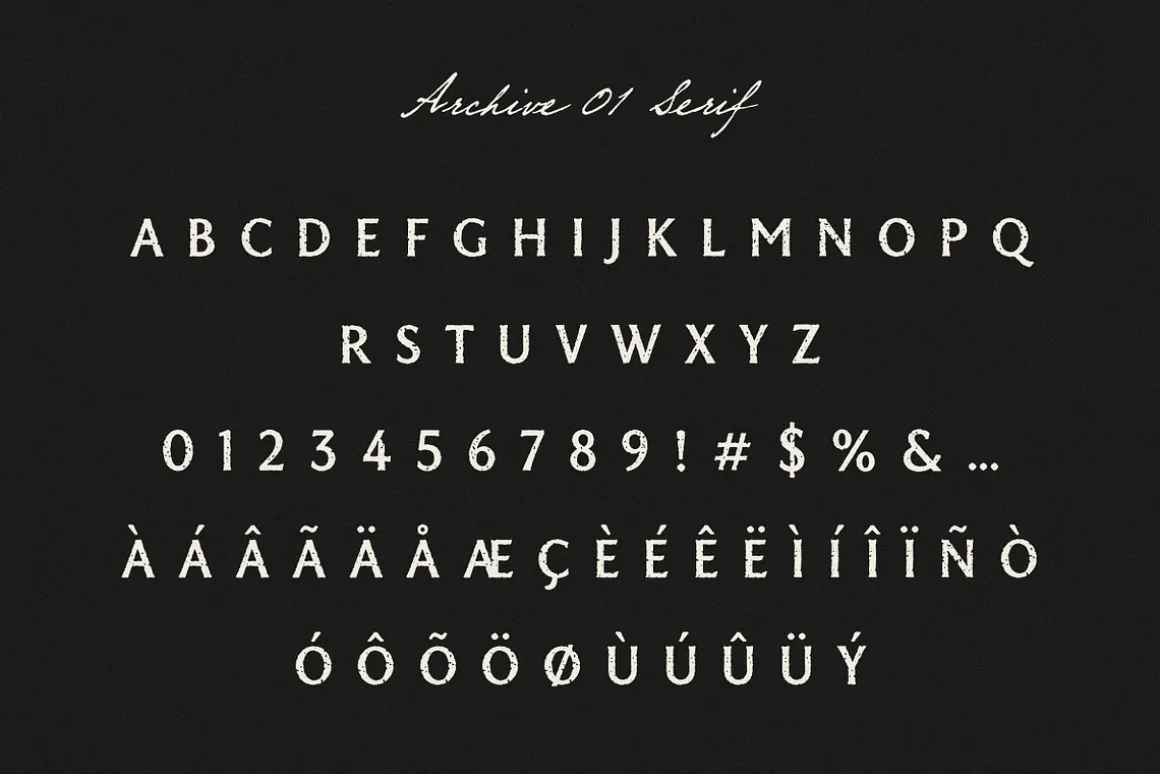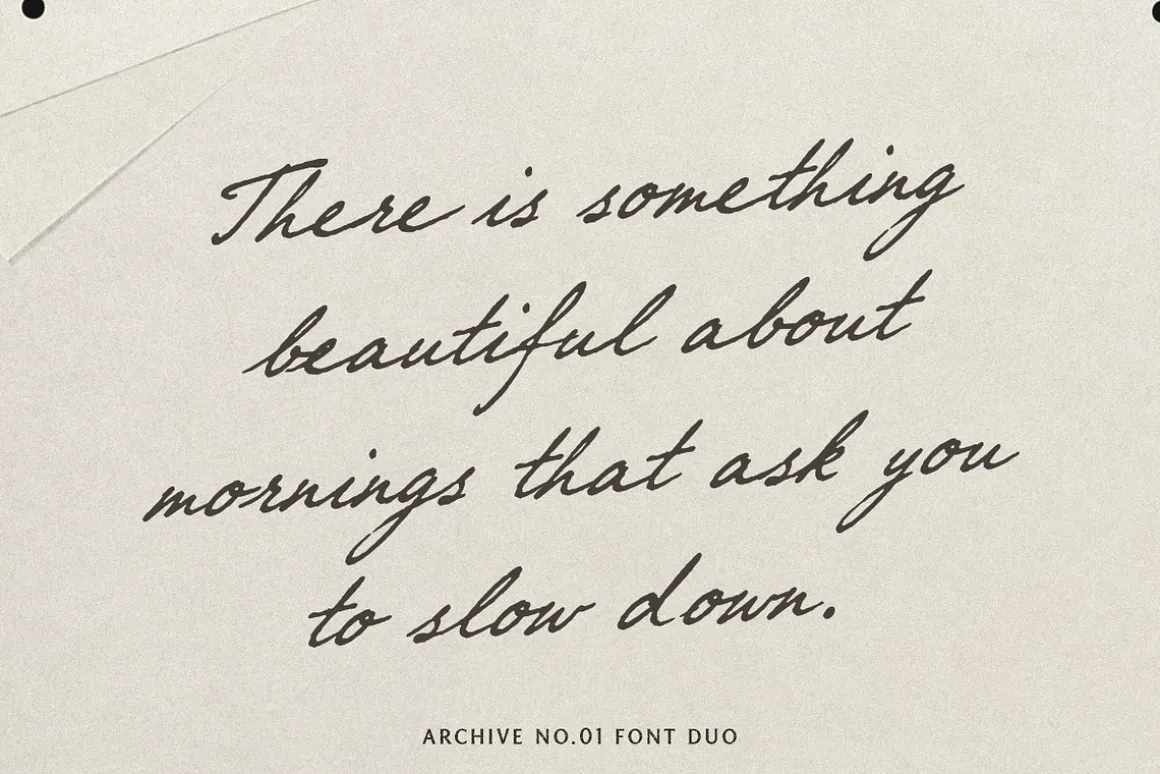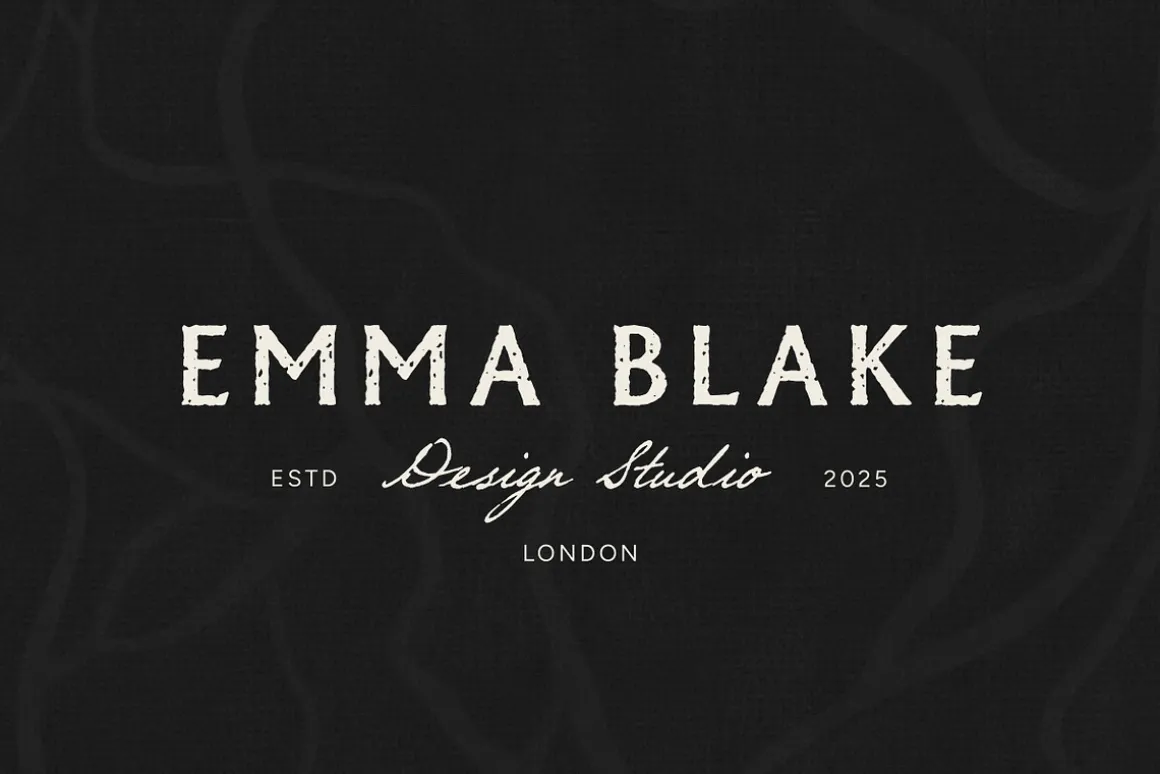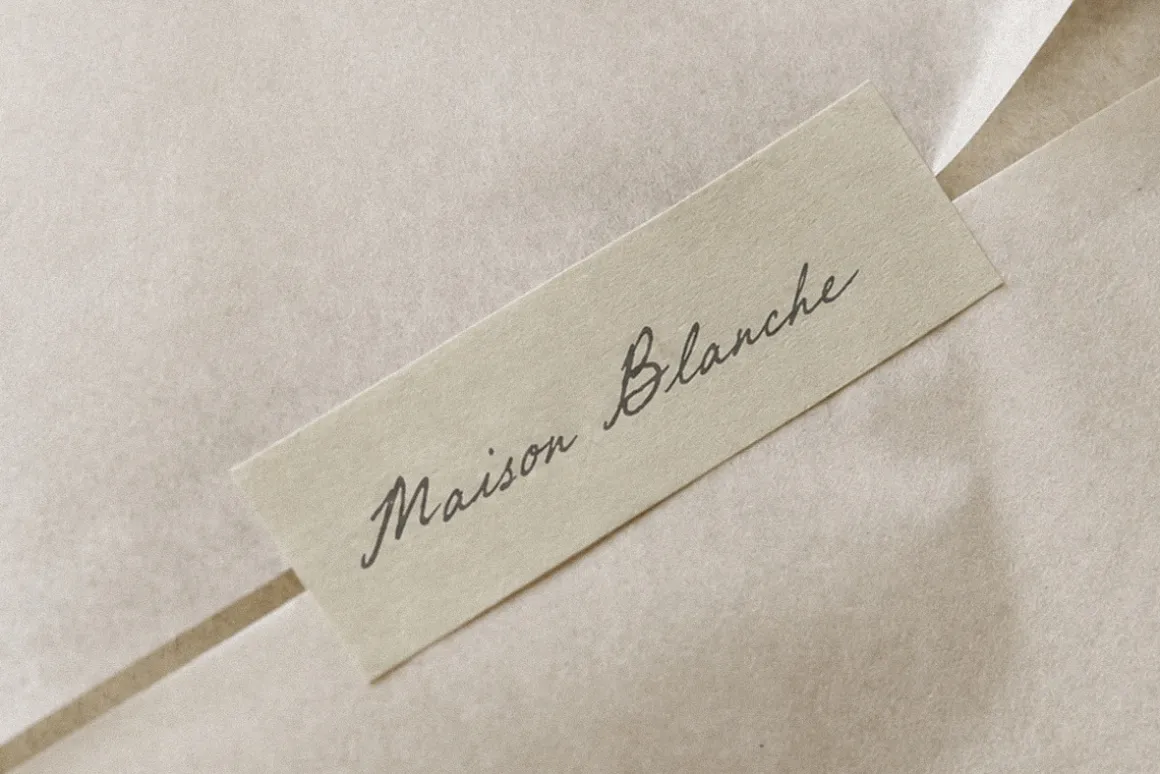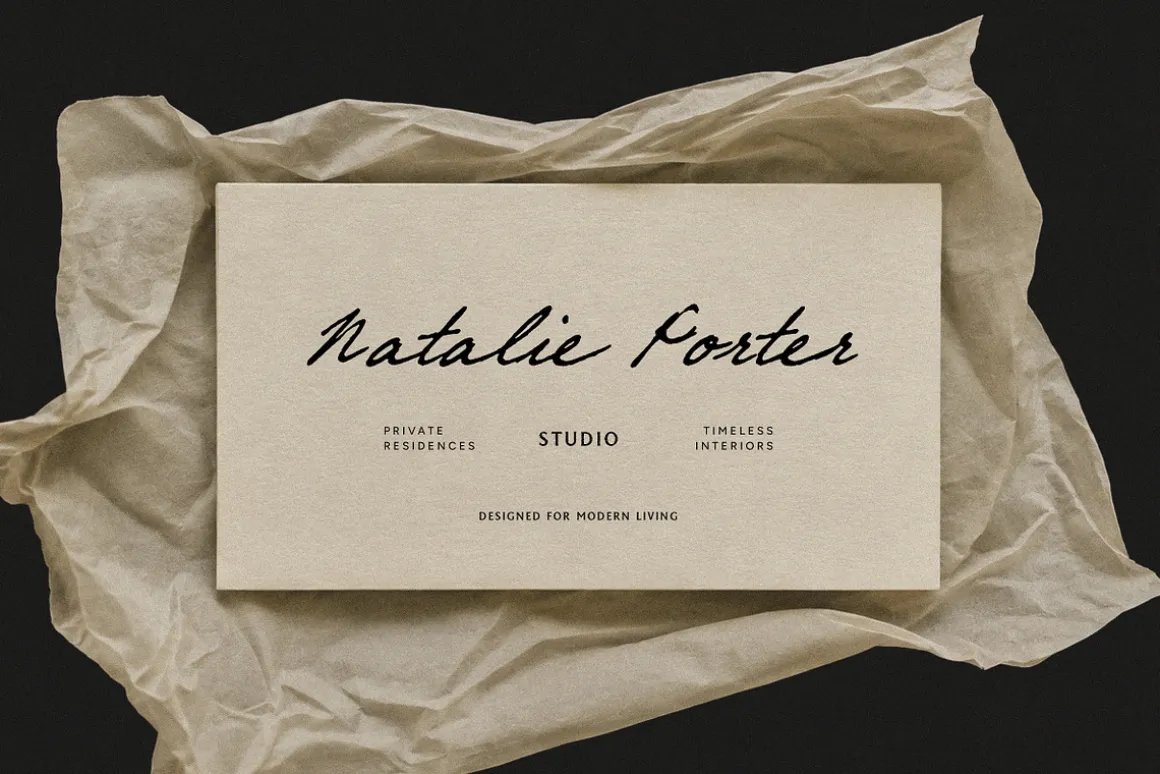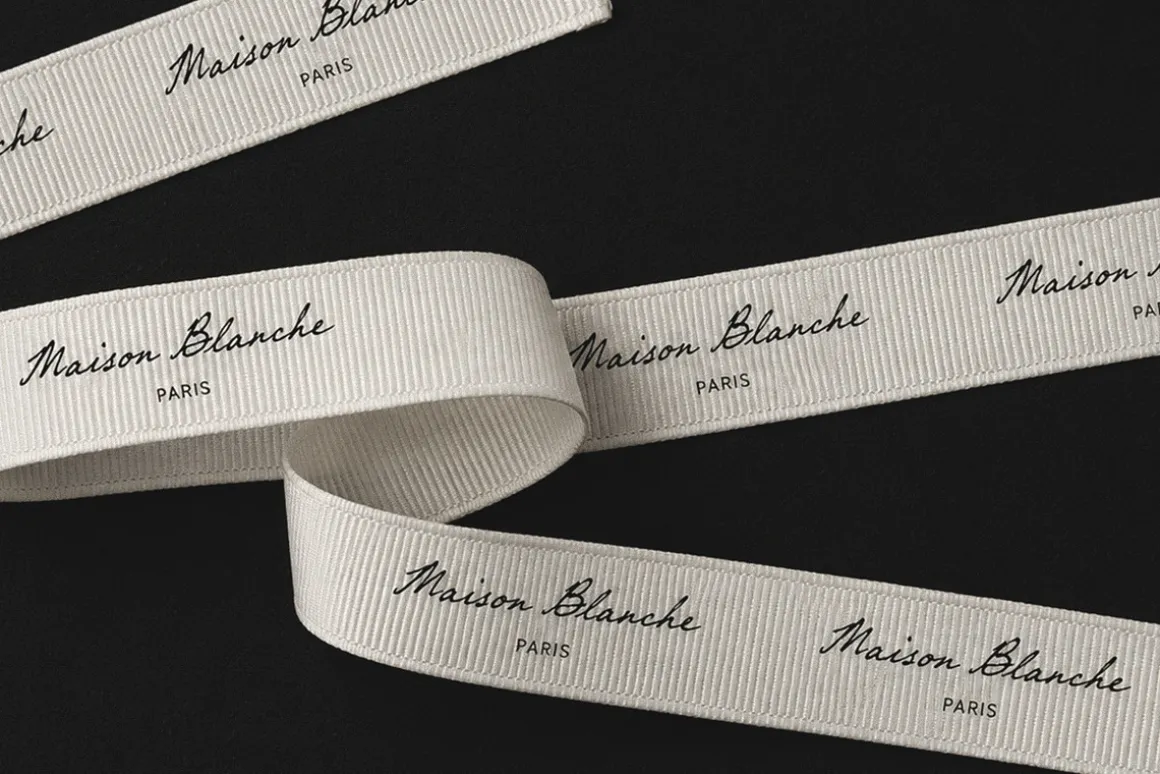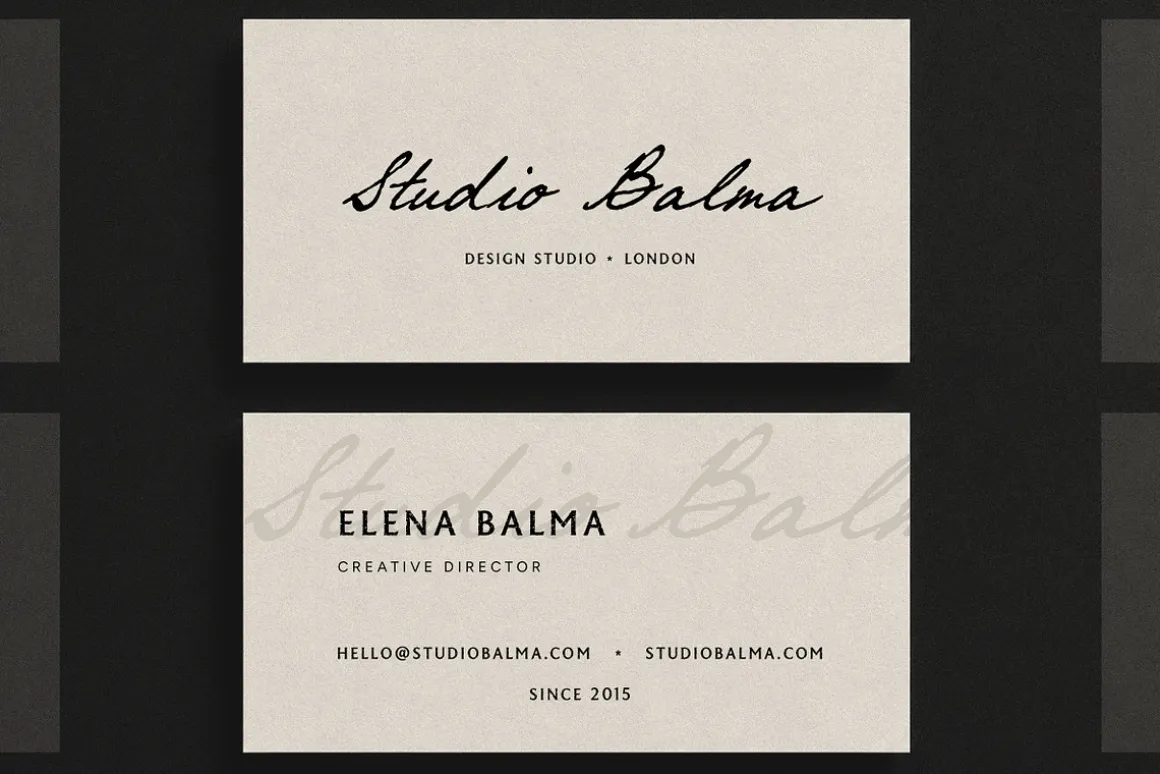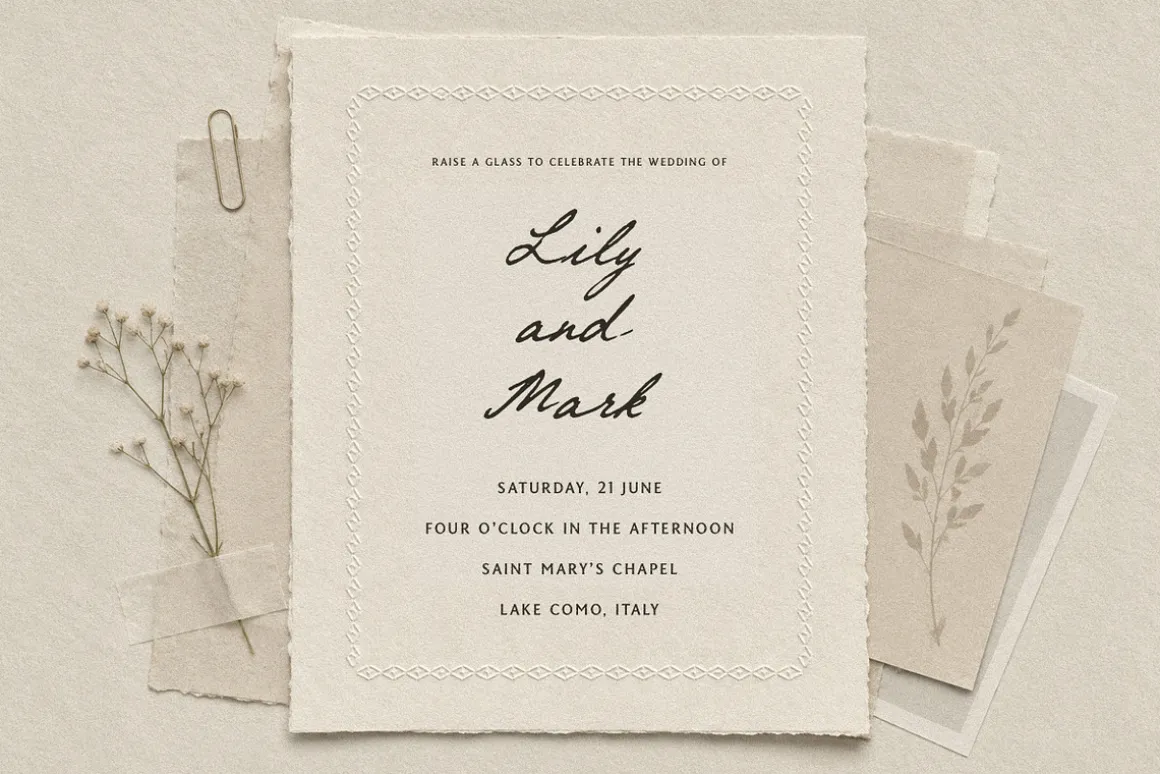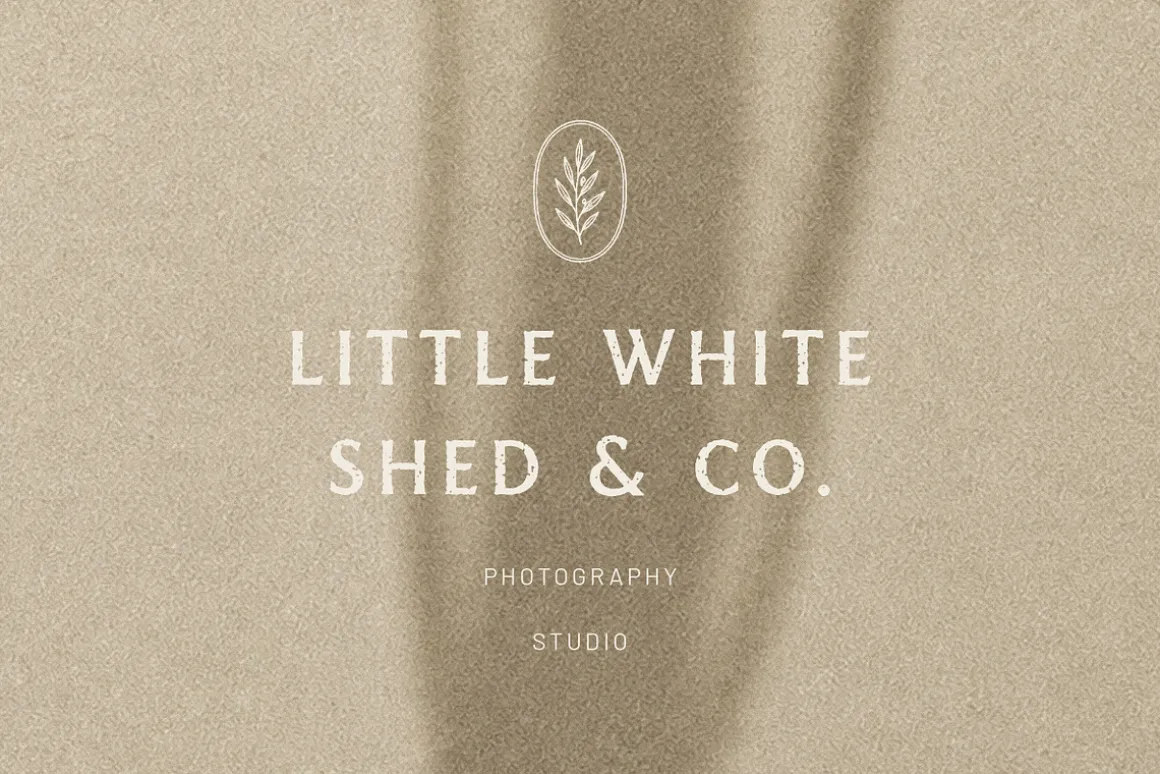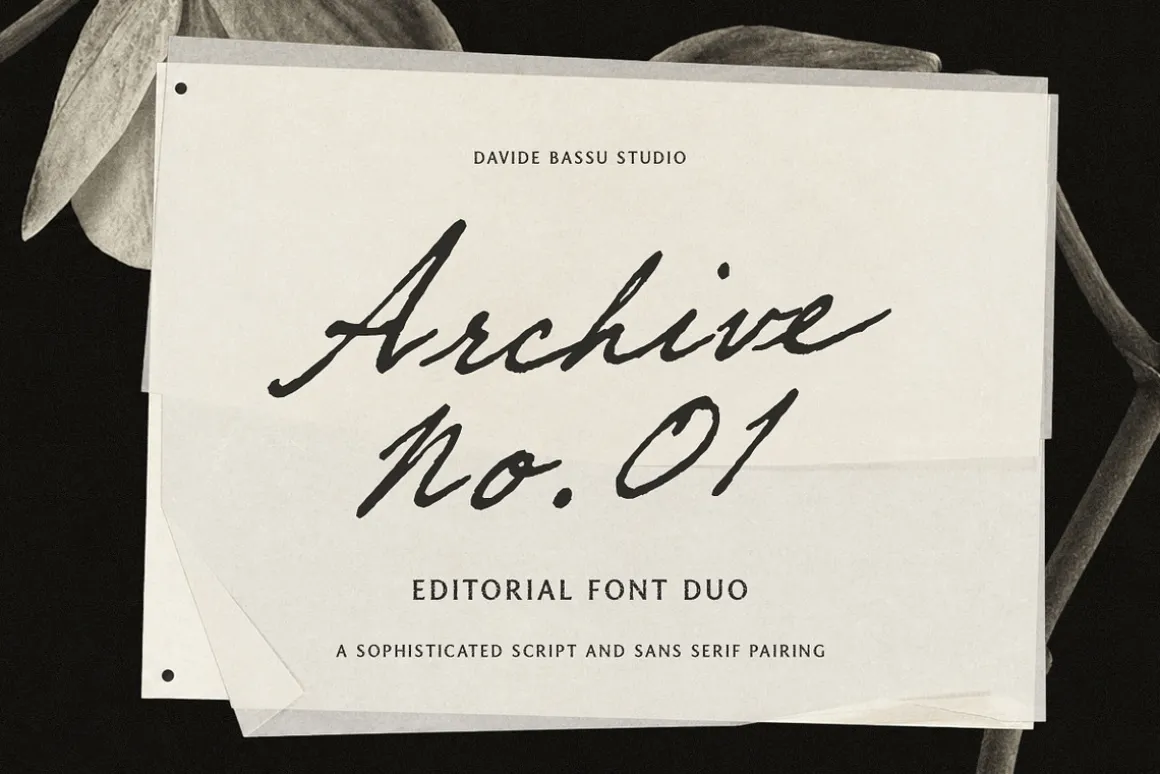
Meet Archive No. 01, a refined font duo thoughtfully crafted for designers who appreciate timeless typography and sophisticated visual storytelling. Combining a high-contrast serif with an expressive handwritten script, this collection brings together structure and personality in perfect harmony.
The serif offers a clean, elegant presence inspired by classic editorial design, while the script introduces warmth and movement with its naturally flowing letterforms. The script is available in both Regular and Slanted styles, making it easy to create beautiful typographic contrast across a wide variety of creative projects.
Archive No. 01 feels equally at home on luxury branding, fashion labels, wedding stationery, boutique packaging, editorial layouts, interior design presentations, magazines, social media graphics, and premium marketing materials.
The family includes the Serif, Script Regular and Script Slanted, complete with uppercase and lowercase characters, numbers, punctuation and extensive Western European language support. The fonts are supplied in OTF, TTF and WOFF formats for a seamless workflow across print, digital and web projects.